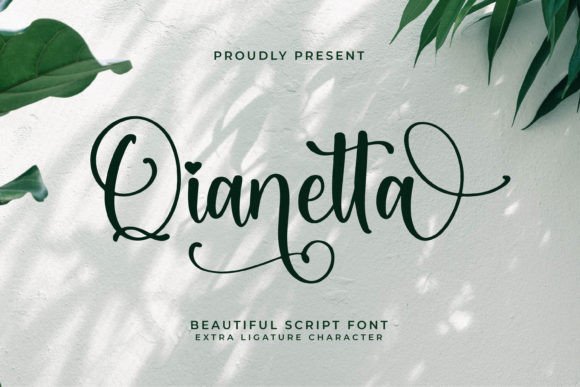
Introducing Qianetta Font, a stunning script font designed with Font Style For Sign Board in mind! Created by the renowned Integritypestudio, Qianetta Font is the perfect combination of sweet and delicate, making it ideal for any design that requires a romantic and personalized touch.
With its dainty and joyful appearance, Qianetta Font is the perfect choice for wedding invitations, greeting cards, and even branding. Its smooth, flowing lines give it an elegant and sophisticated feel, while its unique cursive style adds a touch of whimsy and playfulness.
But Qianetta Font is not just a pretty face! It is also incredibly versatile, making it suitable for a wide range of projects. Whether you're looking to create a logo, design a website, or even print a poster, Qianetta Font is up to the task.
So why choose Qianetta Font? Because it will elevate your designs to the next level, capturing the hearts and minds of your audience with its charm and beauty. This font is perfect for anyone looking to add a touch of romance and elegance to their designs, whether you're a professional designer or simply looking to create something special for a loved one.